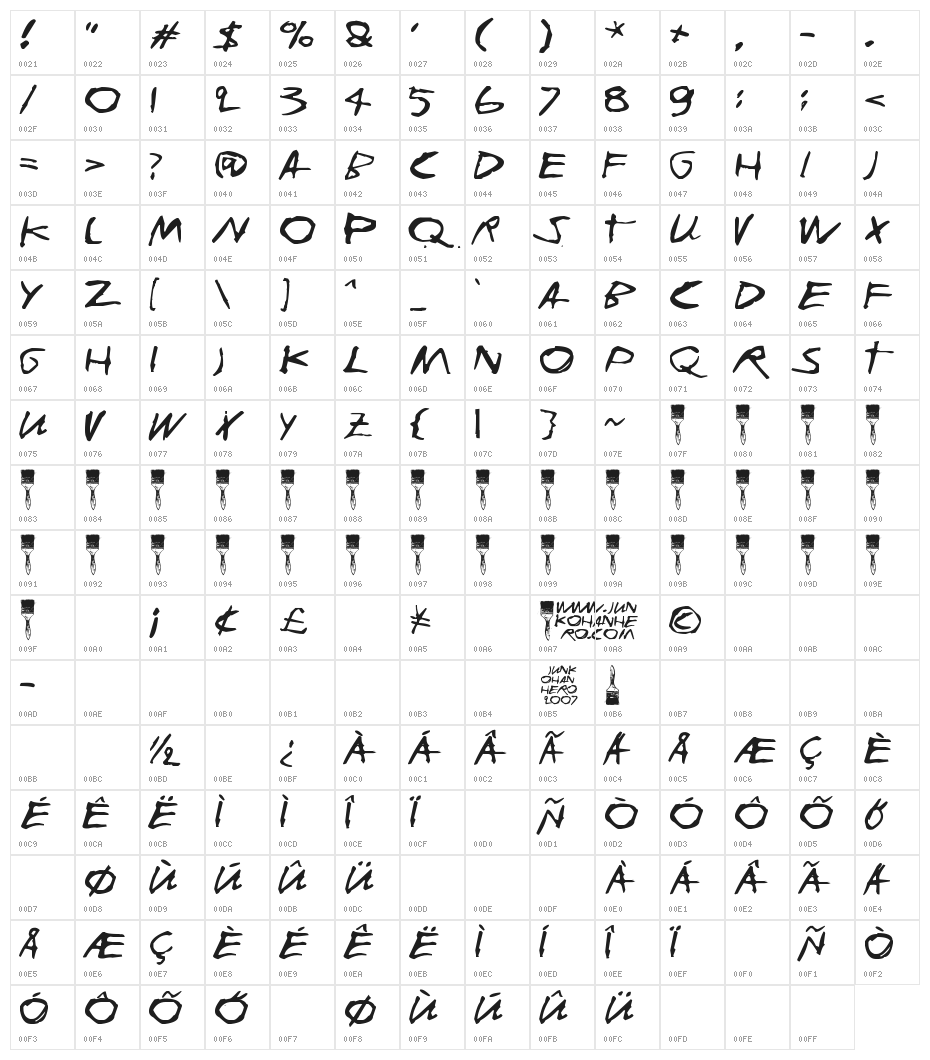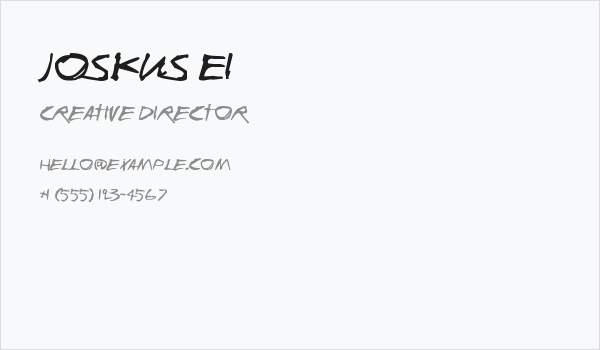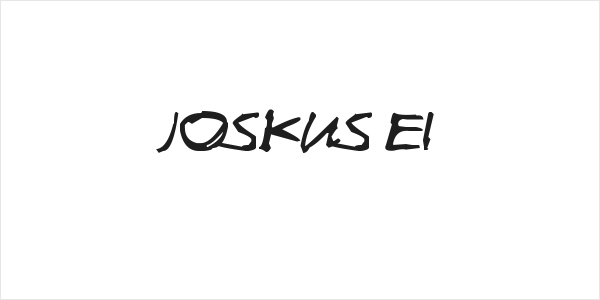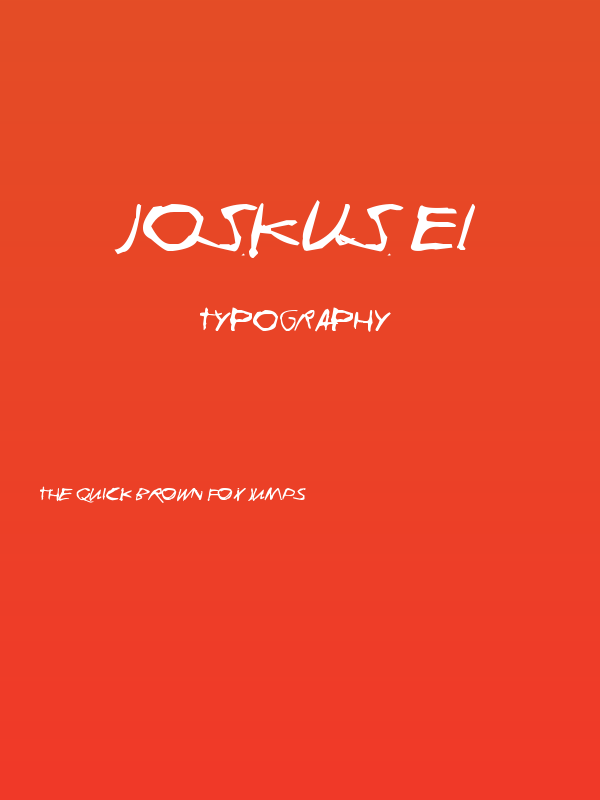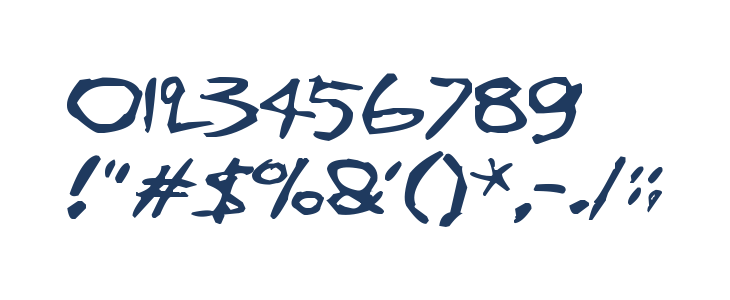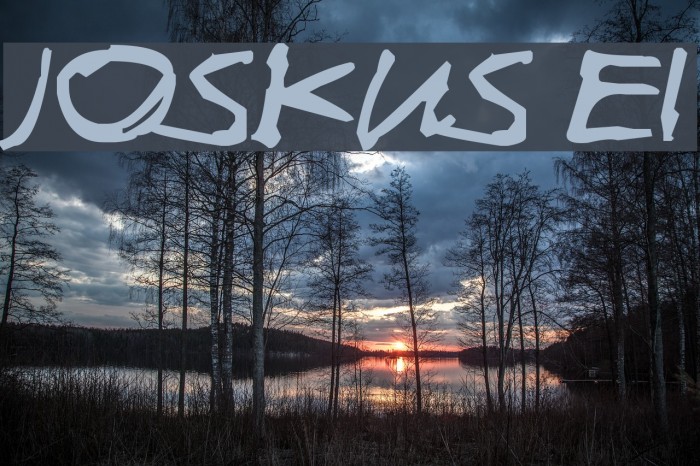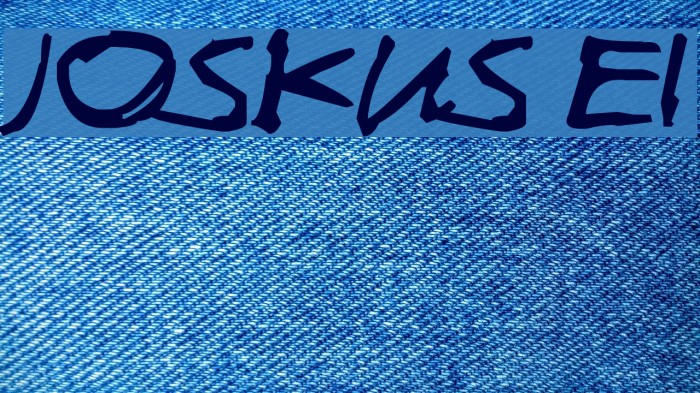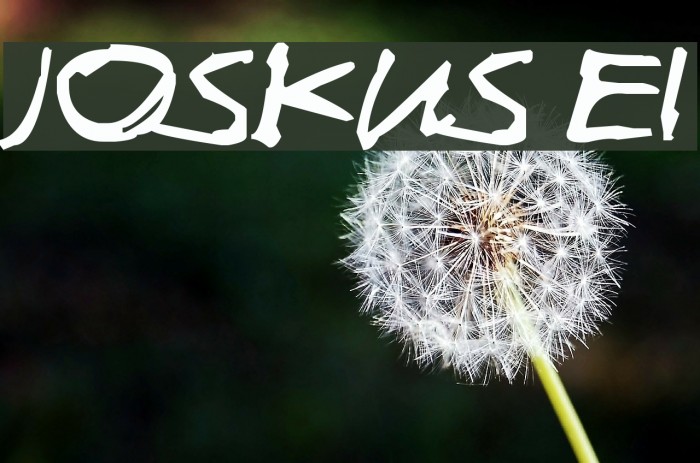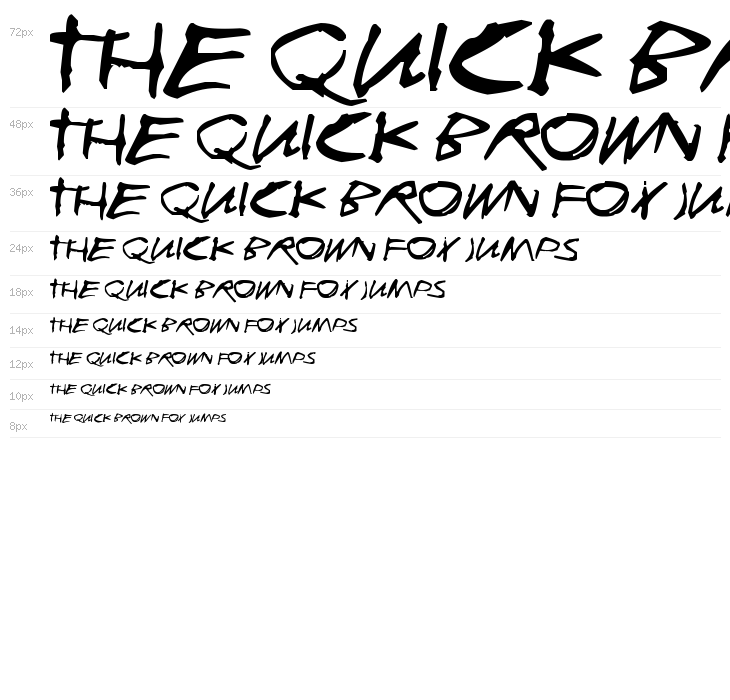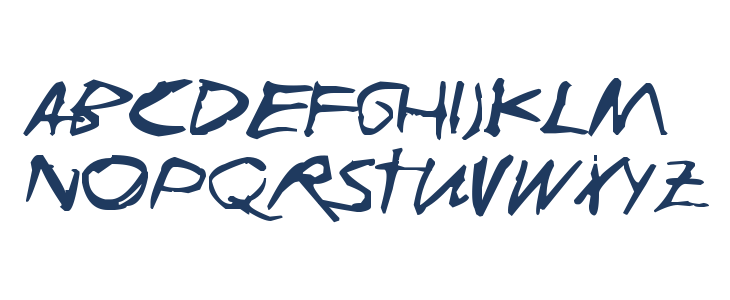
Joskus Ei Font
Joskus Ei Description
This font features a bold and dynamic brush script style, characterized by its energetic and expressive strokes. The letters have a hand-drawn appearance, with varying thicknesses that add a sense of movement and fluidity. The uppercase and lowercase letters maintain a consistent style, with slightly exaggerated curves and angles that enhance its artistic flair. The numbers and special characters are equally expressive, making this font suitable for creative and informal designs. Its unique style captures attention and conveys a sense of spontaneity and creativity.
| Proposed Projects | Ideal for branding, posters, artistic projects, and any design needing a creative, informal touch. |